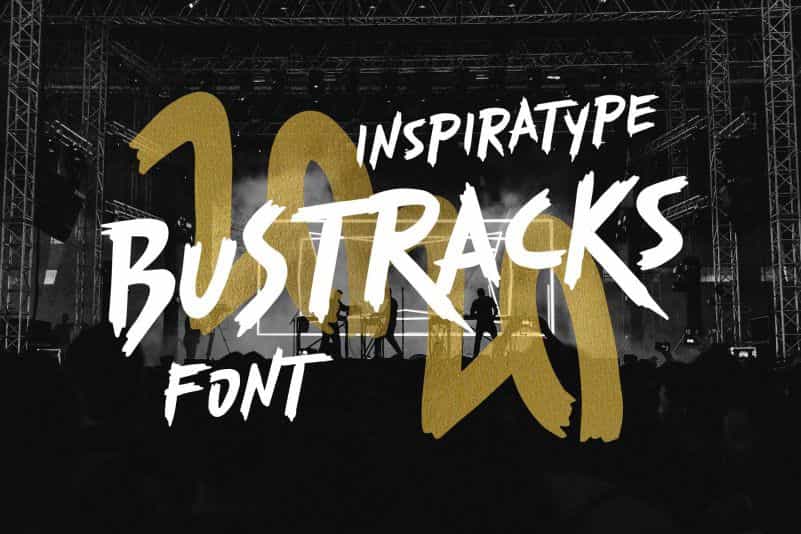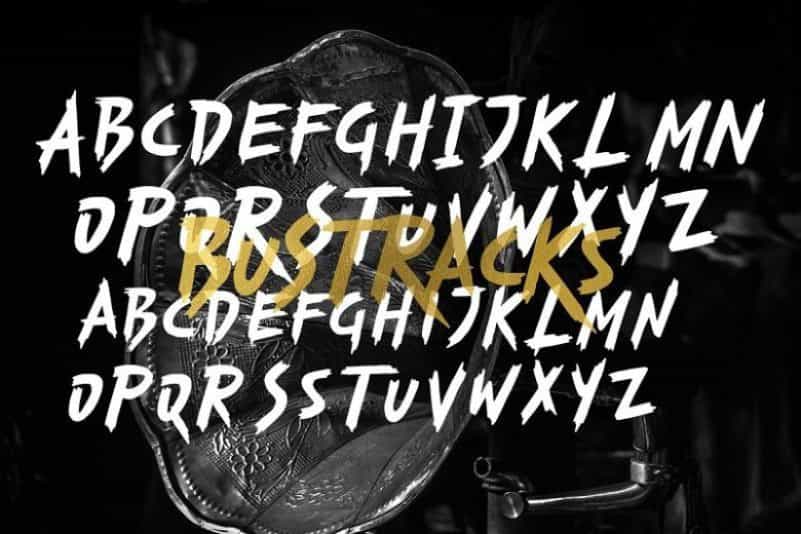
“Bustracks” is a font that displays text and was created by hand, in the style of classic posters. It has the uppercase and lowercase, numerals, punctuations and different variations on each character such as OpenType alternates, common ligatures and also additional swash to enable you to customize your designs. Thus, it is an ideal tool for making Logotype, Letterhead, Poster, Apparel Design and Label.